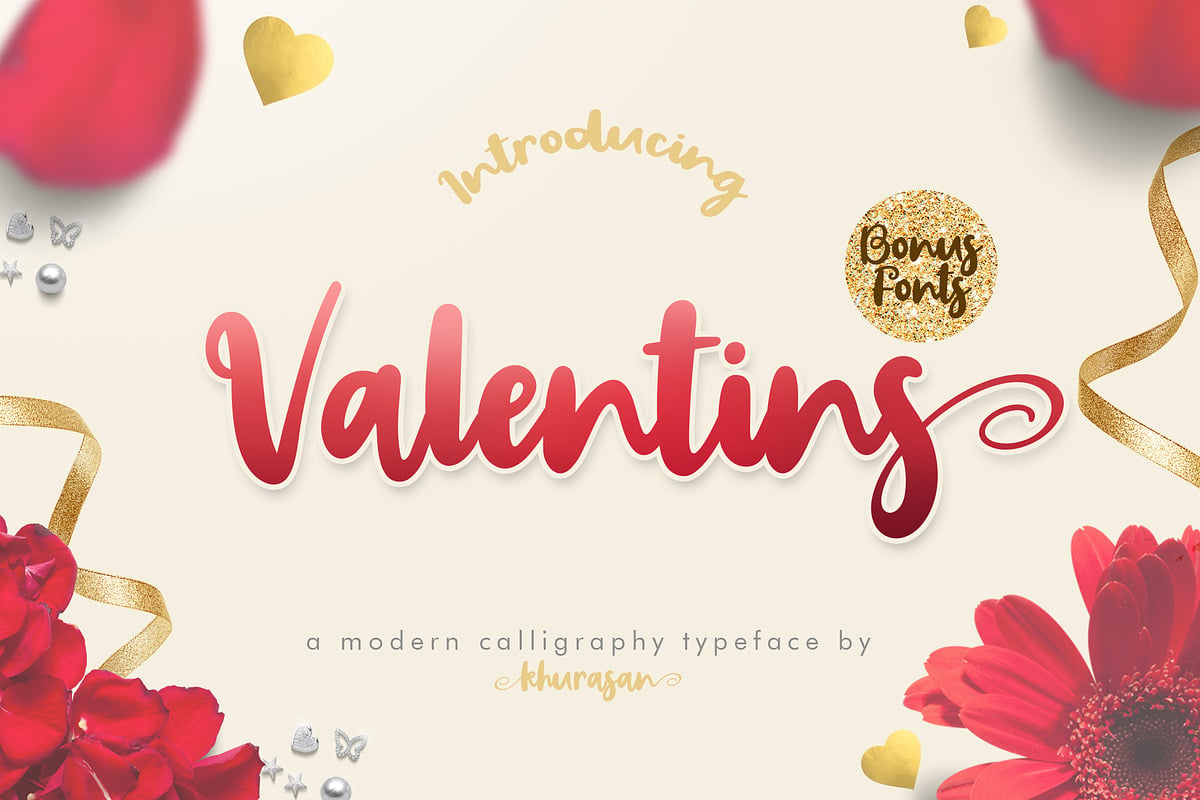
Valentins + Bonus 2 Font
Create romantic designs with Valentins script font bundle featuring elegant calligraphy and festive bonus fonts. This versatile script font collection includes Valentins in both regular and slant styles, plus two bonus script fonts: Welcome 2019 and Memory of 2018. Mix and match these complementary typefaces to achieve stunning results for your romantic and celebratory designs. Perfect for business cards, posters, logos, magazines, covers, banners, t-shirts, headers, and large-scale artwork. The...